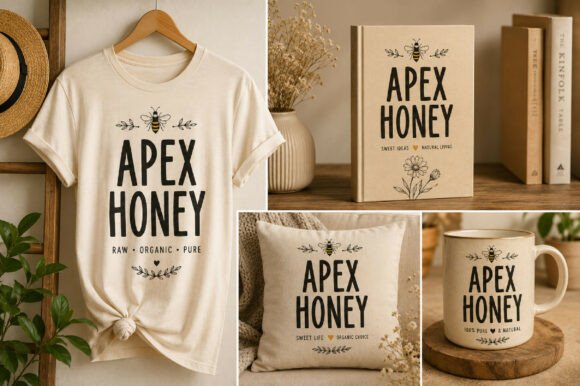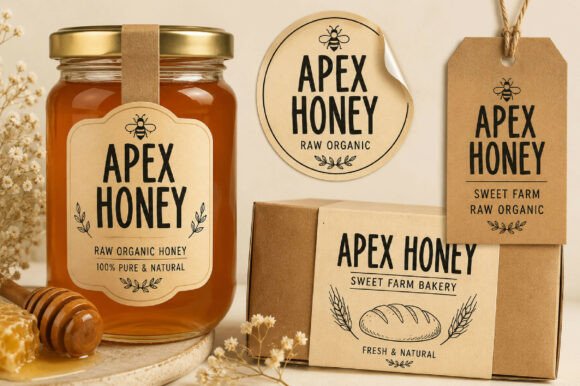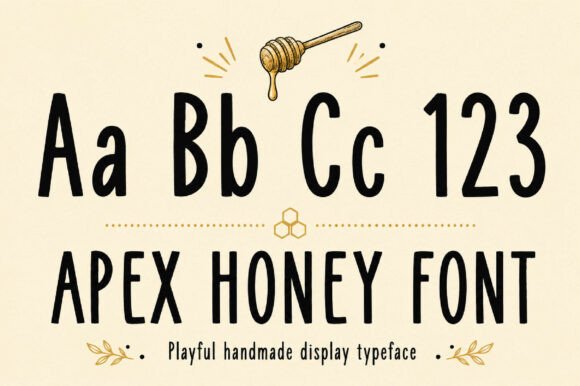
Apex Honey Font: Elevate Your Designs with a Stylish Handwritten Display Font
In the world of typography, a font can make or break the visual appeal of a design. For designers and crafters looking to add a touch of personality and charm to their projects, Apex Honey Font is an excellent choice. This stylish handwritten display font is designed to turn heads with its tall letterforms, bold strokes, and fun handmade character.
Unique Characteristics of Apex Honey Font
Apex Honey Font boasts a narrow structure and slightly irregular shapes, giving it a unique, playful, and eye-catching appearance. Its clean yet expressive style makes it perfect for projects that need bold personality and creative charm. The font’s tall handwritten form makes it especially suitable for display use, headlines, titles, labels, and statement typography.
Whether you are designing posters, logos, packaging, branding materials, social media graphics, merchandise, or event designs, Apex Honey Font helps your typography stand out with a fresh and memorable look. Its friendly yet confident style works beautifully across both print and digital designs, offering a versatile solution for many creative themes.
Key Features of Apex Honey Font
- Tall Letterforms: Apex Honey Font features tall and slender letterforms that add a touch of elegance and sophistication to any design.
- Bold Strokes: The font’s bold strokes give it a confident and playful appearance, making it perfect for display use and headlines.
- Handmade Character: The font’s handmade character adds a touch of warmth and personality to any design, making it perfect for projects that require a human touch.
- Narrow Structure: The font’s narrow structure makes it perfect for designs where space is limited, such as in logos, labels, and titles.
- Irregular Shapes: The font’s slightly irregular shapes give it a unique and playful appearance, adding visual interest to any design.
Benefits of Using Apex Honey Font
Using Apex Honey Font in your designs offers several benefits, including:
- Improved Readability: The font’s clean and expressive style makes it easy to read, even at small sizes.
- Enhanced Visual Appeal: The font’s unique characteristics and bold strokes make it a standout in any design.
- Increased Versatility: The font’s versatility in design applications makes it a valuable addition to any designer’s toolkit.
- Time-Saving: The font’s pre-designed letterforms and shapes save designers time and effort in creating custom typography.
Tips for Using Apex Honey Font Effectively
To get the most out of Apex Honey Font, here are some tips for using it effectively:
- Use it as a Display Font: Apex Honey Font is perfect for display use, headlines, and titles, where its bold strokes and tall letterforms can make a big impact.
- Pair it with Other Fonts: The font pairs well with other fonts, especially those with a more minimalist or serif style, to create a visually appealing contrast.
- Experiment with Colors: The font works well with a variety of colors, so don’t be afraid to experiment and find the perfect combination for your design.
- Use it in Branding: The font’s unique characteristics make it perfect for branding and logo design, where it can help create a memorable and recognizable identity.
Apex Honey Font is a stylish handwritten display font that offers a unique combination of personality, charm, and versatility. Its tall letterforms, bold strokes, and handmade character make it perfect for projects that need bold personality and creative charm. With its clean yet expressive style, Apex Honey Font is an excellent choice for designers and crafters looking to elevate their designs and create a lasting impression.